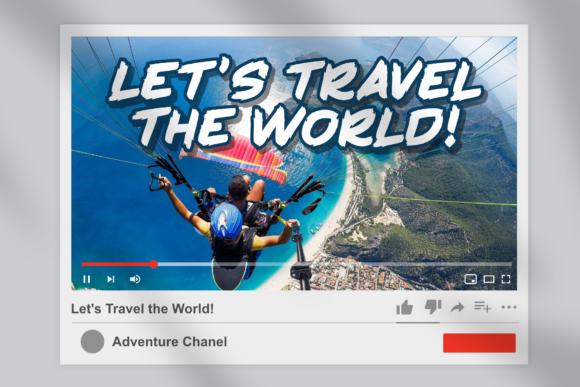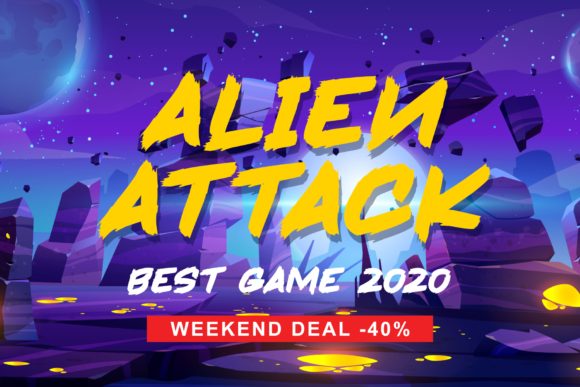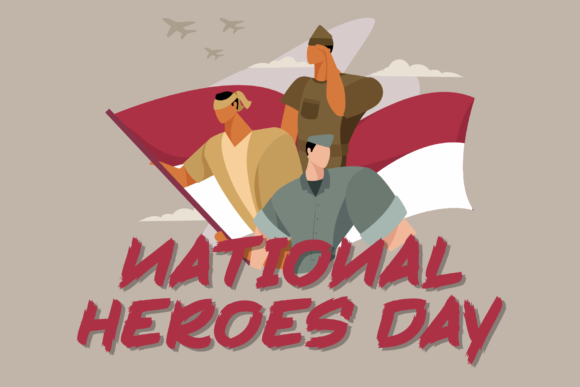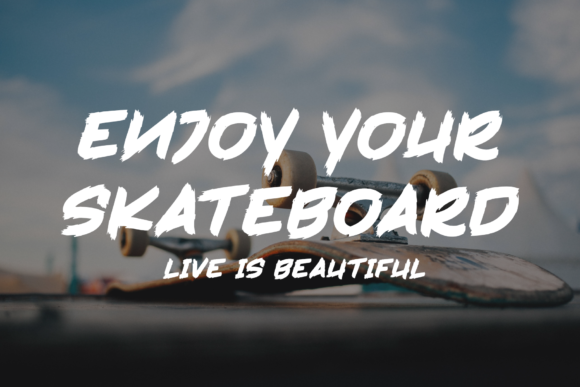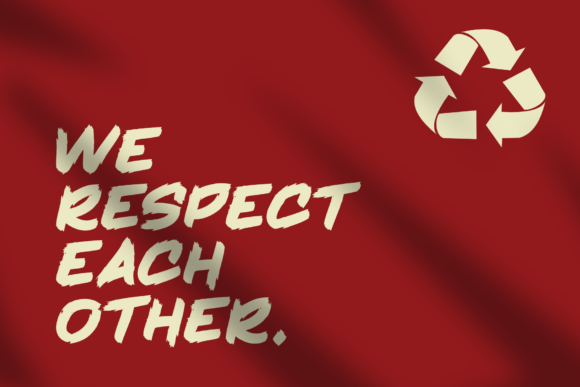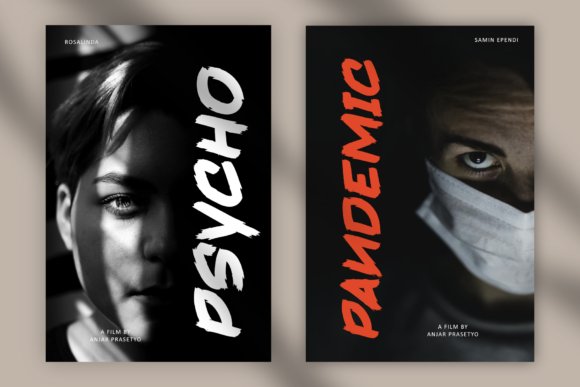
Introduction to Derick Skone Font
There’s something magical about the moment when a design comes together. You’re sipping on your favorite coffee, the music is just right, and the ideas are flowing. You’ve finally found the perfect font to bring your creative project to life, and it’s like the whole world has come alive.
For designers, finding the right font can be a game-changer. It’s the difference between a good design and a great one. And when you stumble upon a font that’s both bold and rough, yet elegant and refined, like the Derick Skone Font, you know you’ve hit the jackpot. This free download is a design resource that’s sure to take your designs to the next level, whether you’re working with a transparent background or a high-quality image.
So, what makes the Derick Skone Font so valuable for designers? In this article, we’ll take a closer look at this stunning font and explore its many uses and benefits.
Key Features of Derick Skone Font
- High-quality design suitable for various creative projects, including digital art and graphic design.
- Includes a transparent background, allowing for seamless integration into various design compositions.
- Features a unique, modern style that sets it apart from other fonts in its category.
Honest Review: Derick Skone Font
I recently stumbled upon the Derick Skone Font while searching for high-quality design resources. As a designer, I’m always on the lookout for fonts that can elevate my creative projects and bring them to life.
- ✨ The Derick Skone Font is highly versatile and can be used for a wide range of creative projects, from logos to digital art.
- ✨ The font is available in a transparent background version, making it easy to work with and customize.
- ⚠️ The font is only available in a limited number of weights and styles.
Overall, I’m impressed with the Derick Skone Font. It’s a high-quality design resource that’s perfect for small-scale projects and personal use. While it may have some limitations, the benefits far outweigh the drawbacks.
How to Use Derick Skone Font
Derick Skone Font Overview
The Derick Skone Font is a high-quality, free download design resource ideal for creative projects. Its transparent background and unique design style make it a versatile tool for various applications.
Tips for Getting the Most Out of Derick Skone Font
Experiment with different font sizes and styles to achieve the desired look.
Combine the Derick Skone Font with other design elements for a unique and eye-catching design.
Common Use Cases for Derick Skone Font
Use the Derick Skone Font for logos, branding, and marketing materials.
Apply it to digital products, such as e-books and websites, for a professional and modern look.